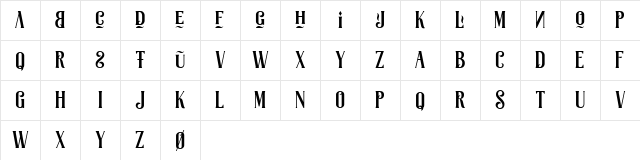
Complete Swistblnk Moalang Melintang Regular glyph index. Displaying only characters natively supported by Swistblnk Moalang Melintang Regular font.
Swistblnk Moalang Melintang is a composed and adaptable typeface that performs quietly and consistently across a wide range of design contexts.